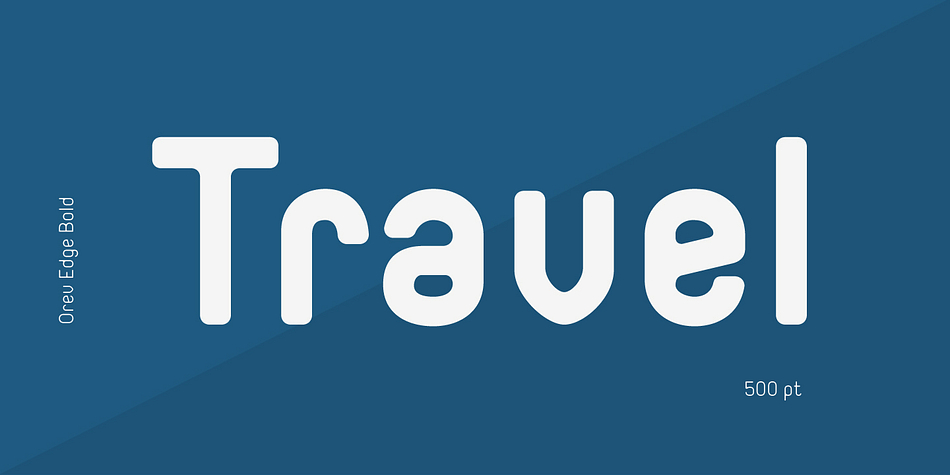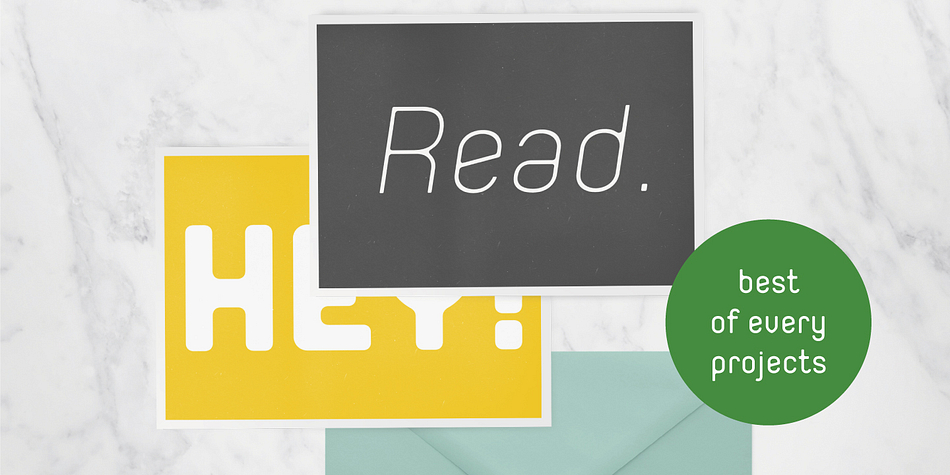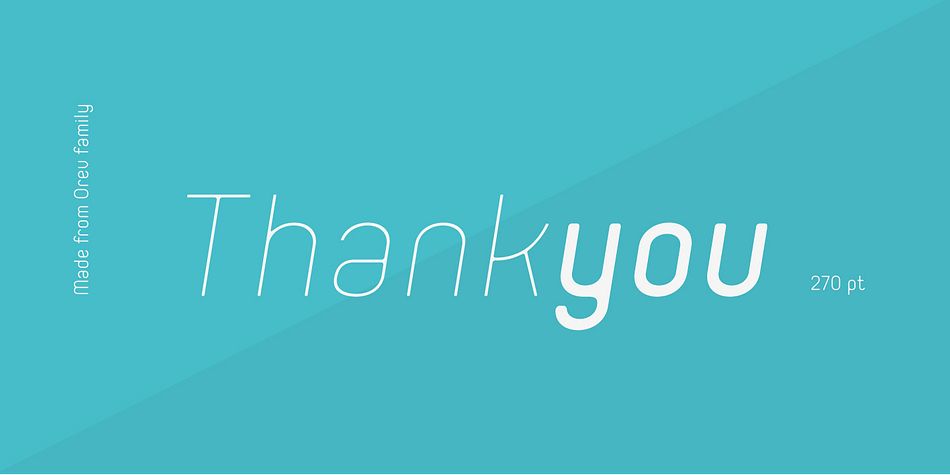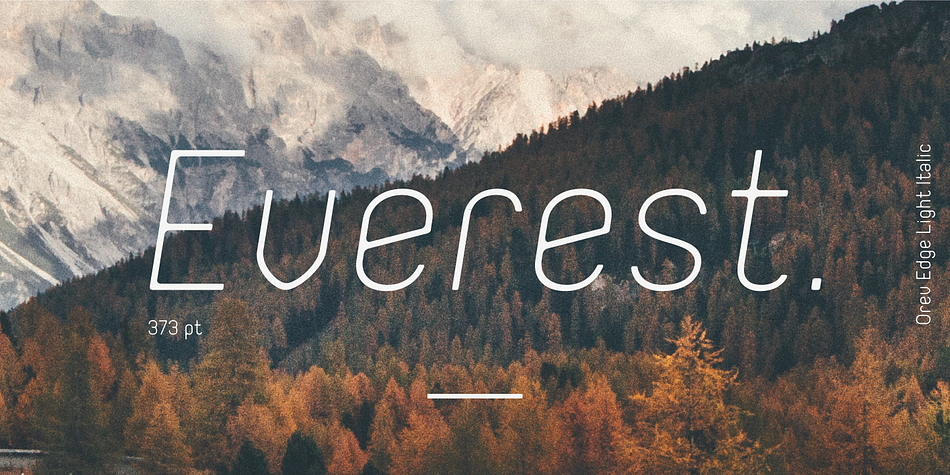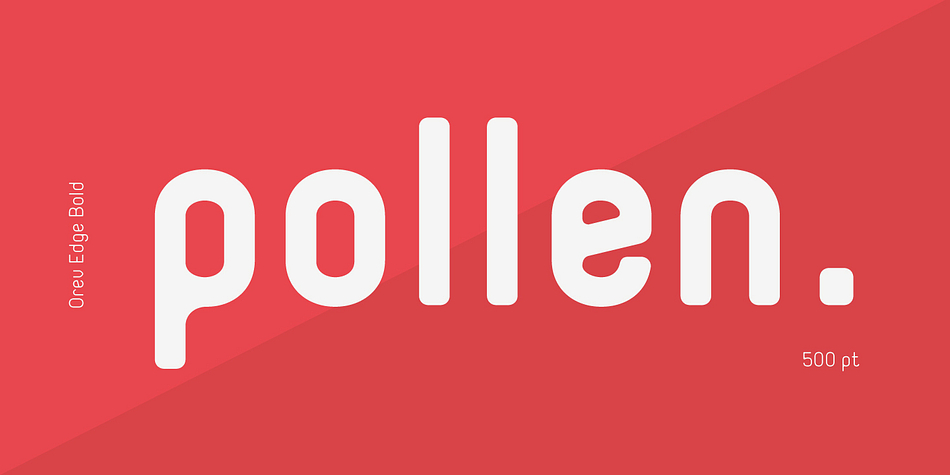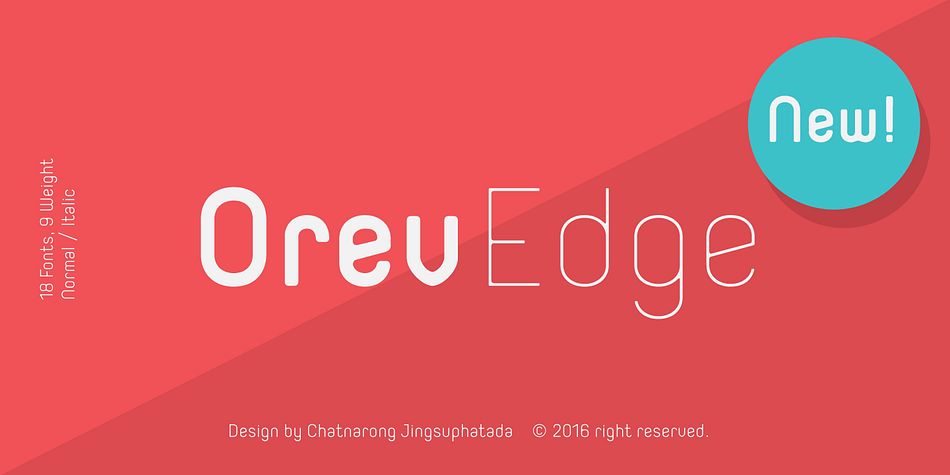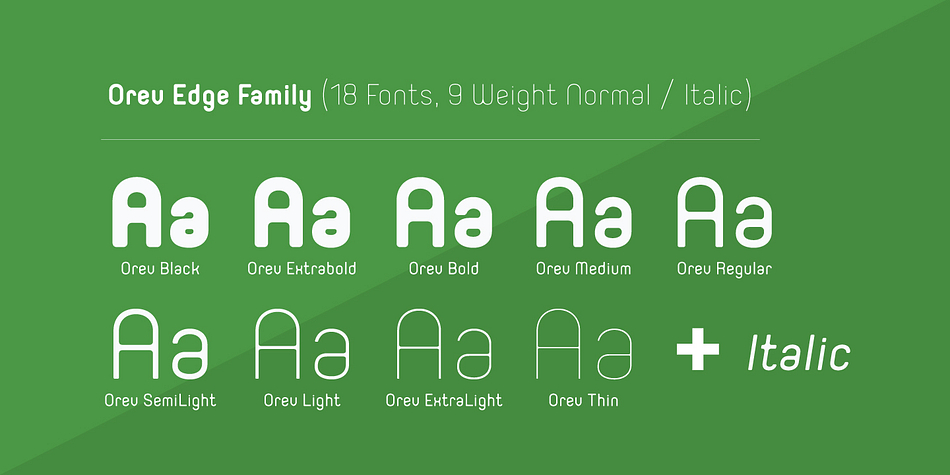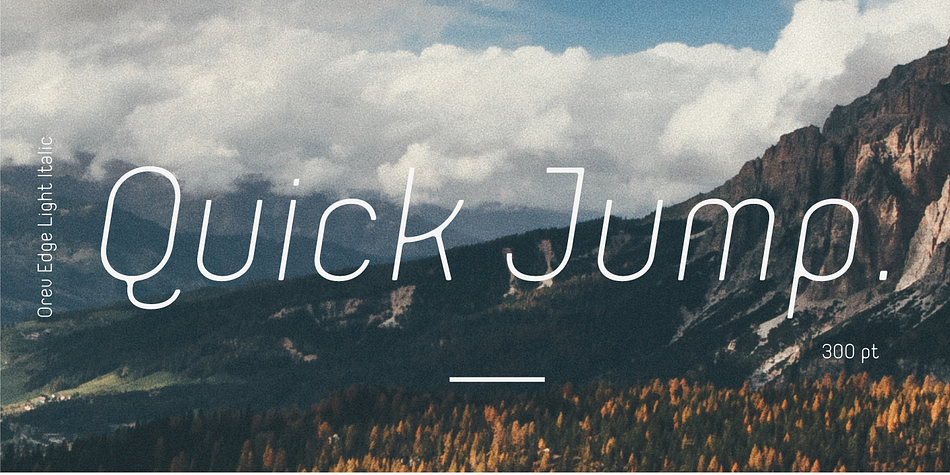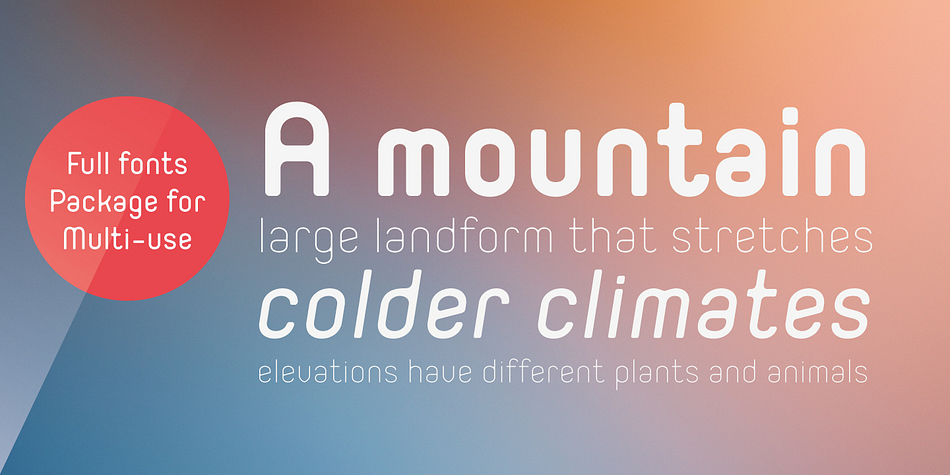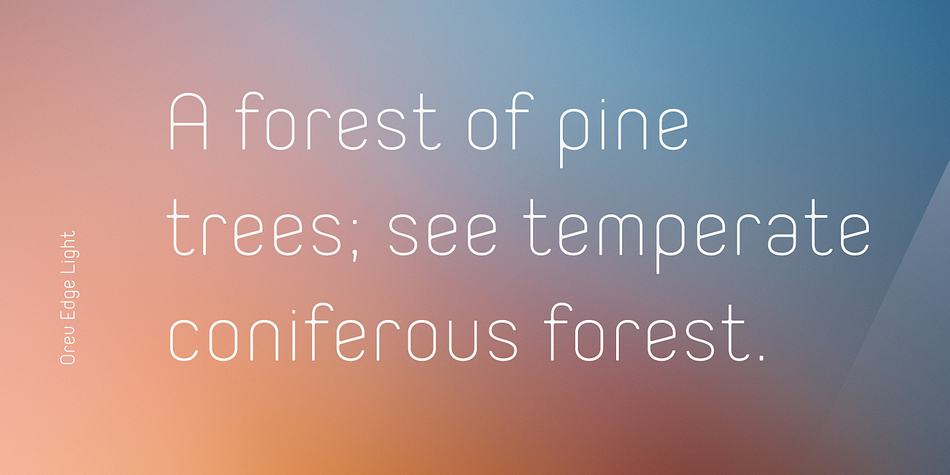
Designed by Chatnarong Jingsuphatada, Orev Edge is a sans serif font family. This typeface has eighteen styles and was published by Typesketchbook.
Orev Edge is altered modified from the form of the original Orev typeface. We added curved line in both inner and outer edges, including the structure of typeface. Import to be more friendly, the font family has smoother terminals that harmonize with the newly-added curved lines. With all of these features , Orev Edge is a prominent, eye-catching and unique typeface. It comes with 9 weights and italic type in order to suit for a multifunctional usage, especially for cooperative work, such as website, magazine, editorial, publishing , as well as packaging.